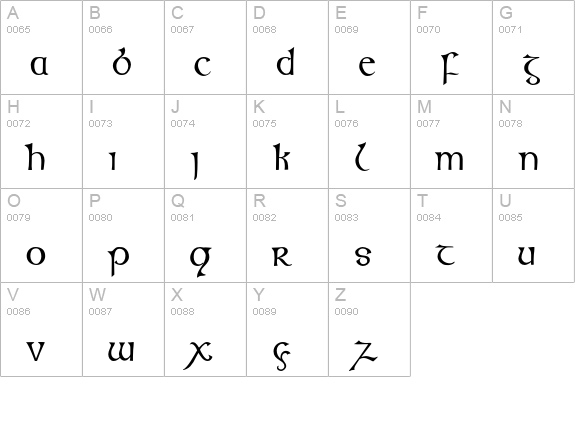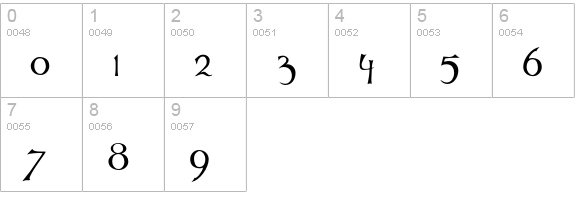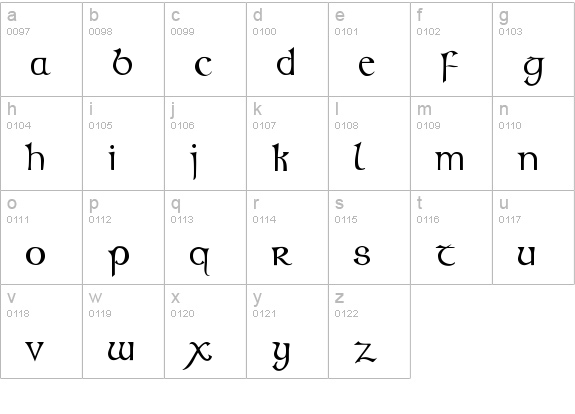
KellsRound Font Details
KellsRound font is a stunning display font that exudes elegance and sophistication. Its rounded edges and smooth curves give it a unique and modern look, making it perfect for a variety of design projects. Whether you're creating a logo, a poster, or a website, this font will surely make a lasting impression. But what makes KellsRound font even more appealing is the fact that it is free! Yes, you read that right. This beautiful font is freely available to download at FontsMarket.com. This means that you can add a touch of sophistication to your designs without having to spend a dime. The versatility of KellsRound font is truly remarkable. It works well for both headlines and body text, making it a great choice for any project. Its clean and legible design ensures that your message will be conveyed effortlessly, while its unique style adds a touch of creativity and personality. With KellsRound font, you can easily elevate your designs to a whole new level. Its sleek and modern look will captivate your audience and leave a lasting impression. So why wait? Head over to FontsMarket.com now and download this amazing font for free. Your designs will thank you.